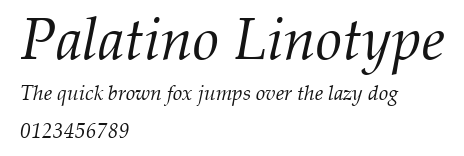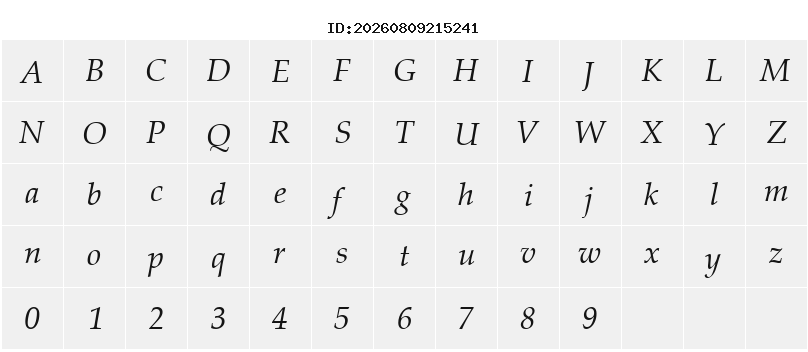
• Font Name: Palatino Linotype
• Font Style: Italique
• Designer: Hermann Zapf
• Manufacturer: LINOTYPE-HELL AG
• Description: Palatino Linotype is the definitive new version of Hermann Zapf’s Palatino, which since its design in 1950 has become one of the world's most widely used typefaces. For this new digital version, Professor Zapf has drawn numerous additional characters to include an extensive range of ligatures, numerals, fractions and support for Cyrillic and both monotonic and polytonic Greek. Special care has been taken to enhance the quality of the letterforms when displayed on the computer screen, ensuring that Palatino Linotype is highly legible whether displayed on the screen or in print. This typeface is ideal for use in extended text settings such as books, periodicals and catalogs.